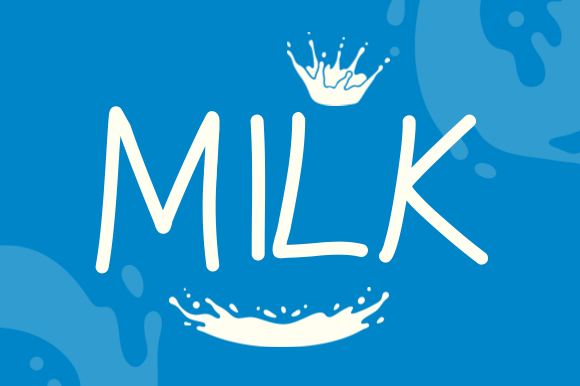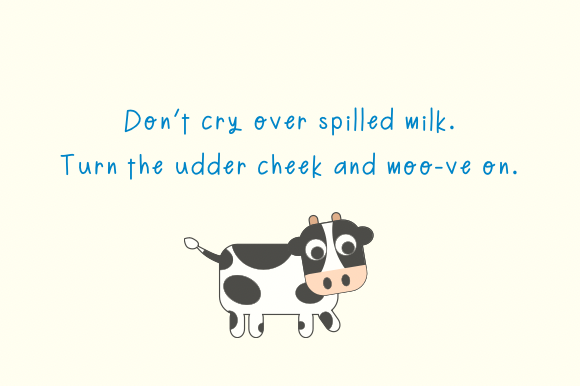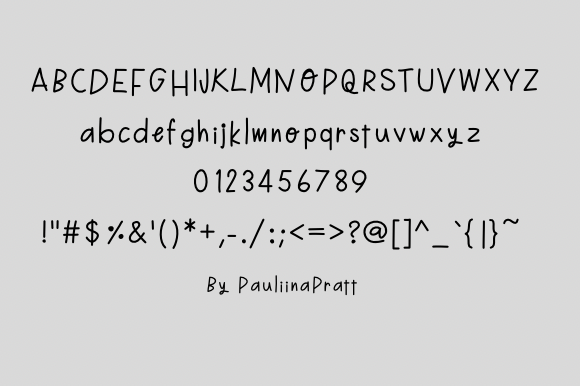
Milk Font
About Milk Font
Milk is a cute handwriting font. It has beautiful and well-balanced characters which makes it suitable for a wide range of crafty ideas!